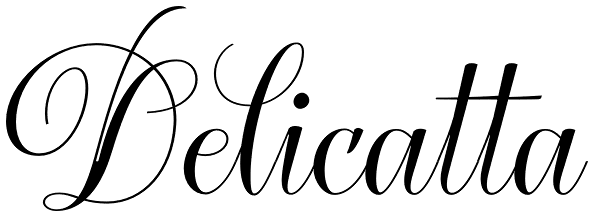
Delicatta
"Delicatta" is a beautiful and expressive script font by dooType. You can use it in many areas such as packaging, invitations, magazines and posters. This version contains Opentype Features including alternates and ligatures that you can use as...